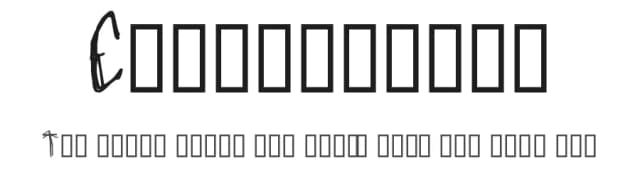
About Quarter Oz. To Freedom Font
Quarter Oz. To Freedom is a script & handwritten font designed by Spork Thug Typography. It includes 94 glyphs, a regular weight, TTF (TrueType) format, and 104 languages. Quarter Oz. To Freedom is free to download; check the license details on this page before commercial use. Script & handwritten fonts like Quarter Oz. To Freedom work best for wedding invitations, greeting cards, signatures, and elegant branding.
Quarter Oz. To Freedom Font is a script font that shines as a display or heading face. Pair it with a clean sans-serif or serif font for body text β the contrast creates a clear hierarchy while the two styles stay balanced and easy to read.
Quarter Oz. To Freedom Font
Quarter Oz. To Freedom Font is a script handwritten typeface by Spork Thug Typography, ideal for logos, invitations, branding, and creative projects.